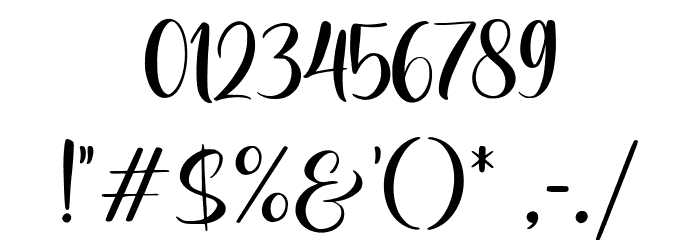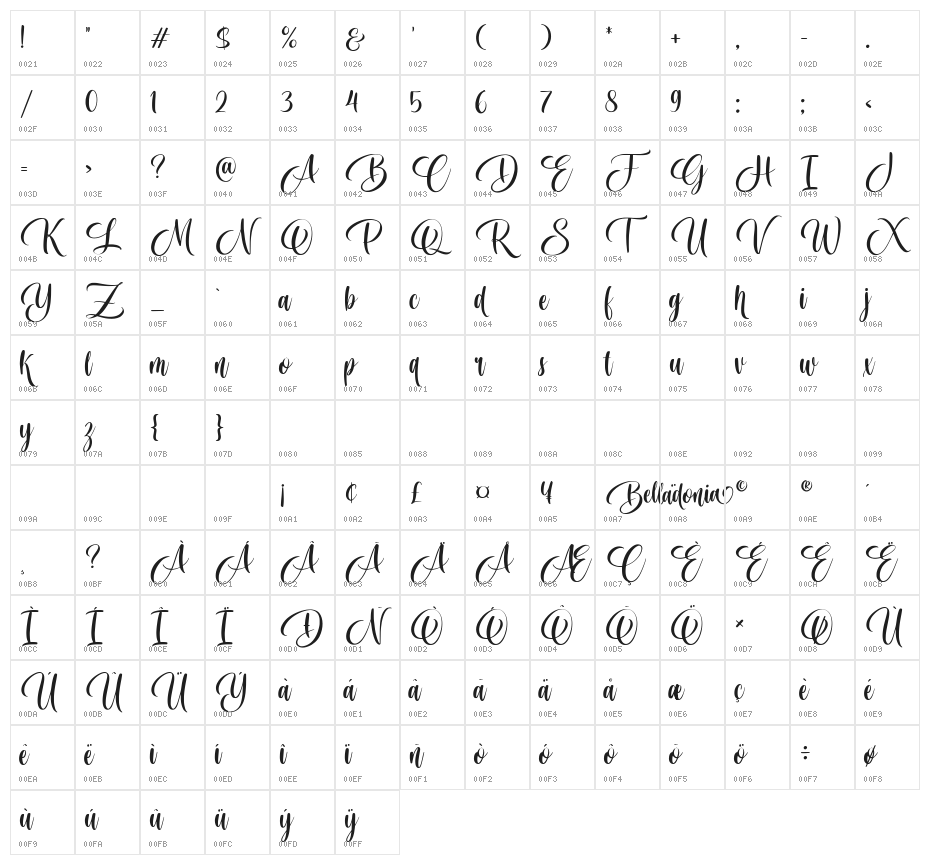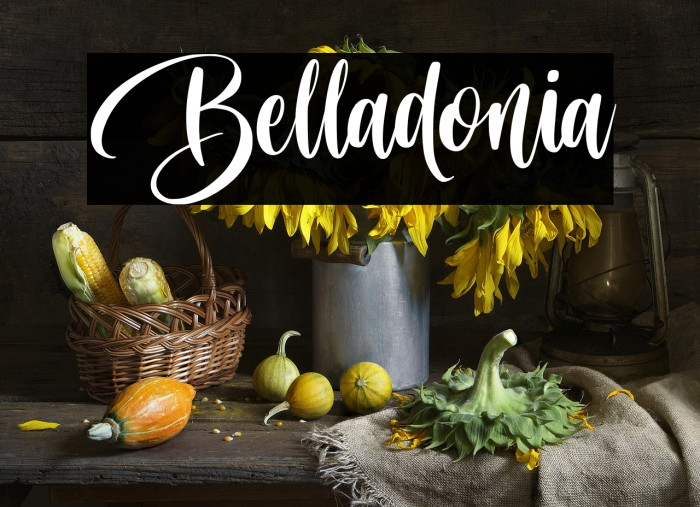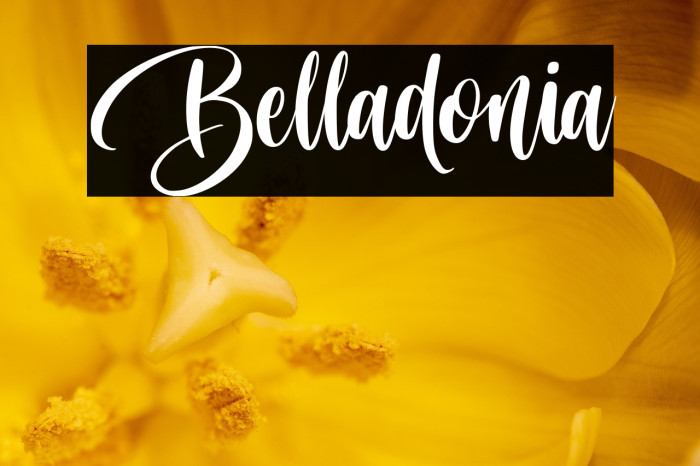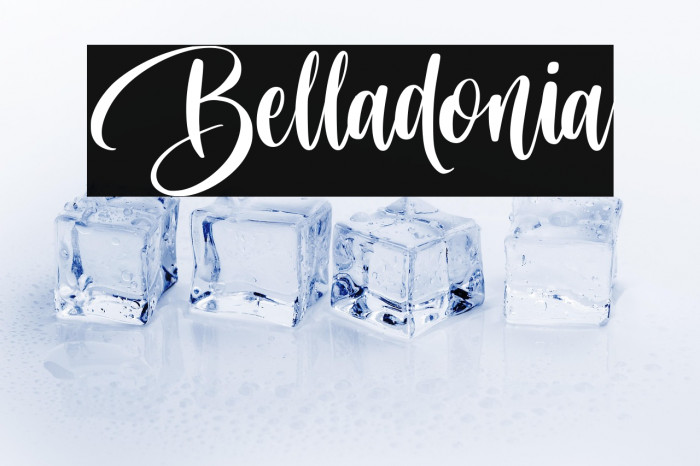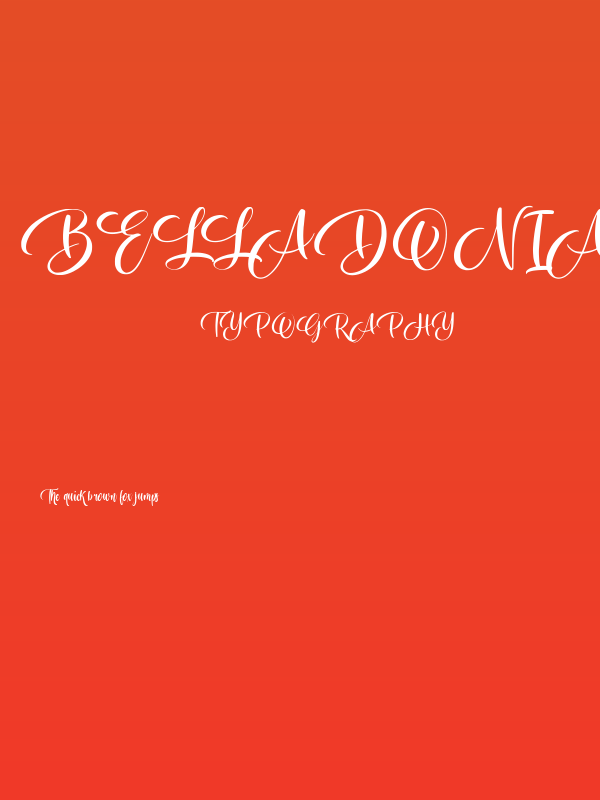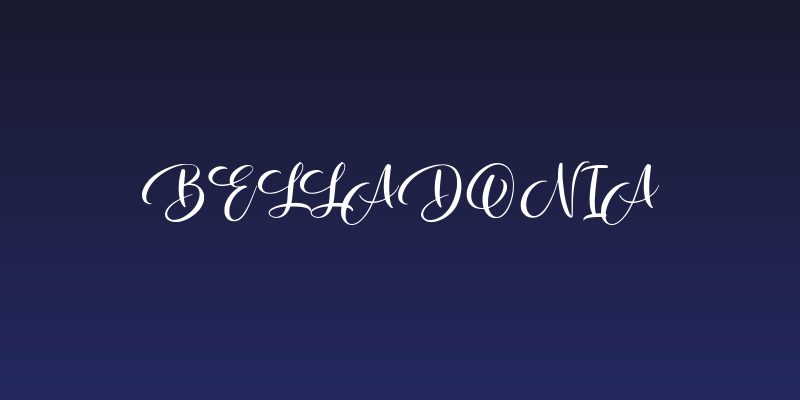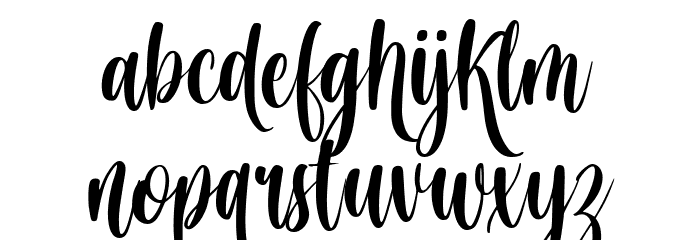
Belladonia Font
Belladonia Description
This font features an elegant and flowing script style, characterized by its smooth, cursive strokes and graceful curves. The uppercase letters are ornate, with sweeping lines that give a sense of movement and fluidity. The lowercase letters maintain a consistent style, with a slightly more compact form that complements the uppercase. The numerals are bold and clear, ensuring readability while maintaining the overall decorative theme. Special characters are designed with the same attention to detail, integrating seamlessly with the alphabetic characters. This font exudes a sense of sophistication and charm, making it ideal for projects that require a touch of elegance.
| Proposed Projects | Ideal for wedding invitations, greeting cards, branding, and elegant logos. |